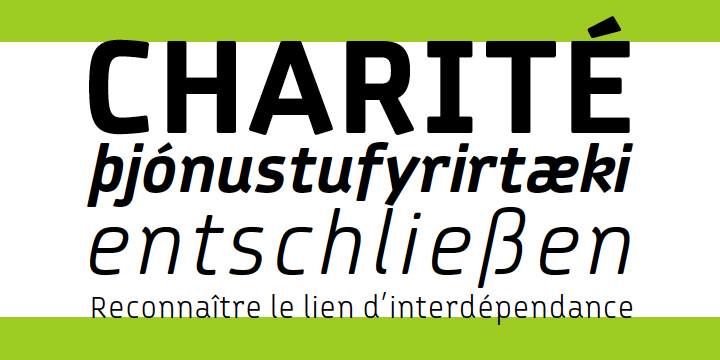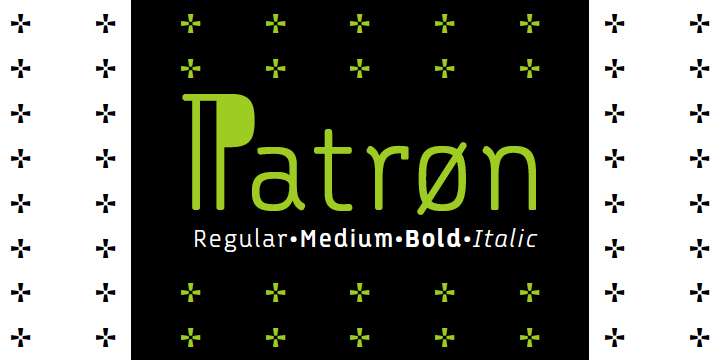
Patron is a sans serif font family. This typeface has six styles and was published by Vesturbaer Fonts.
Patron is a modern, mono-linear, sans-serif font family with large x-height and softened edges containing 12 fonts.
This typeface was born as a corporate font design for non-profit sector and today it is available for public. At the moment Patron is offered as a PostScript-flavored OTF, but its construction is tuned to display well on screen as well. Works on a TrueType version with individual glyph hinting are being carried out. In addition, Patron has alternative family (Patron Alt) with enhanced personality, suitable mainly for headlines.